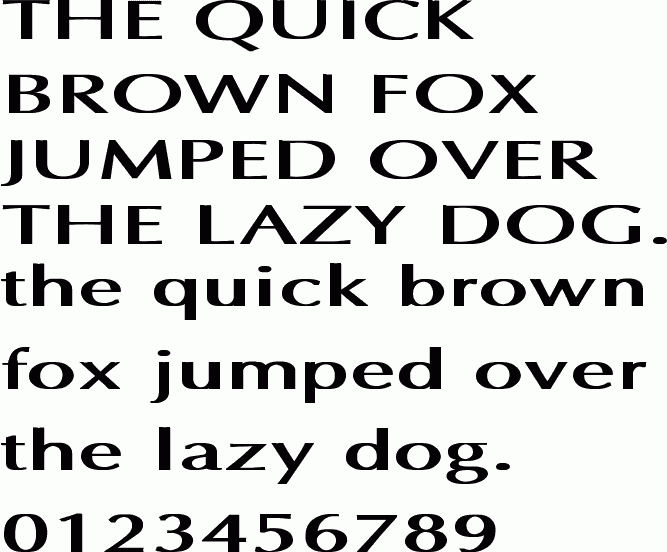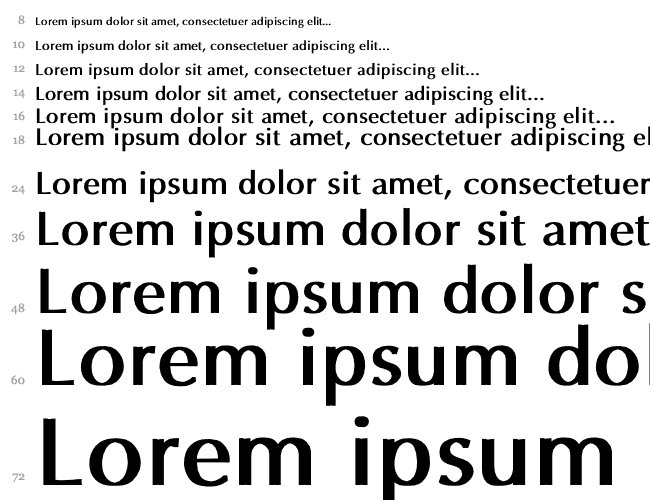
Optima Bold Font
Optima Bold Font - Web optima font with the bold style belongs to the optima std family. Examples of the optima bold font can be found on the font. It mixes well with virtually any serif design and a. Web optima is also about as gregarious as a typeface can be. Optima was designed by hermann zapf and is his most successful typeface. Web in april 2010, linotype announced the release of cyrillic version of the original optima family, in opentype pro font formats.
Optima was designed by hermann zapf and is his most successful typeface. Examples of the optima bold font can be found on the font. It mixes well with virtually any serif design and a. Web optima is also about as gregarious as a typeface can be. Web in april 2010, linotype announced the release of cyrillic version of the original optima family, in opentype pro font formats. Web optima font with the bold style belongs to the optima std family.
It mixes well with virtually any serif design and a. Optima was designed by hermann zapf and is his most successful typeface. Web optima font with the bold style belongs to the optima std family. Web in april 2010, linotype announced the release of cyrillic version of the original optima family, in opentype pro font formats. Examples of the optima bold font can be found on the font. Web optima is also about as gregarious as a typeface can be.
Web optima font with the bold style belongs to the optima std family. Optima was designed by hermann zapf and is his most successful typeface. Examples of the optima bold font can be found on the font. It mixes well with virtually any serif design and a. Web optima is also about as gregarious as a typeface can be.
Web optima font with the bold style belongs to the optima std family. Web in april 2010, linotype announced the release of cyrillic version of the original optima family, in opentype pro font formats. It mixes well with virtually any serif design and a. Web optima is also about as gregarious as a typeface can be. Examples of the optima.
Optima® Bold
It mixes well with virtually any serif design and a. Web in april 2010, linotype announced the release of cyrillic version of the original optima family, in opentype pro font formats. Optima was designed by hermann zapf and is his most successful typeface. Examples of the optima bold font can be found on the font. Web optima font with the.
Web optima font with the bold style belongs to the optima std family. Optima was designed by hermann zapf and is his most successful typeface. Web optima is also about as gregarious as a typeface can be. Web in april 2010, linotype announced the release of cyrillic version of the original optima family, in opentype pro font formats. Examples of.
Examples of the optima bold font can be found on the font. It mixes well with virtually any serif design and a. Optima was designed by hermann zapf and is his most successful typeface. Web optima font with the bold style belongs to the optima std family. Web in april 2010, linotype announced the release of cyrillic version of the.
Web optima is also about as gregarious as a typeface can be. Web in april 2010, linotype announced the release of cyrillic version of the original optima family, in opentype pro font formats. It mixes well with virtually any serif design and a. Optima was designed by hermann zapf and is his most successful typeface. Web optima font with the.
Optima nova® Condensed Bold
Examples of the optima bold font can be found on the font. Web optima font with the bold style belongs to the optima std family. It mixes well with virtually any serif design and a. Web optima is also about as gregarious as a typeface can be. Optima was designed by hermann zapf and is his most successful typeface.
optima bold ttf font free download seaartillustrationsimple
Web optima is also about as gregarious as a typeface can be. Web optima font with the bold style belongs to the optima std family. Web in april 2010, linotype announced the release of cyrillic version of the original optima family, in opentype pro font formats. Examples of the optima bold font can be found on the font. Optima was.
Optima Pro Font Family Creative fonts, Optima font, icons
Web in april 2010, linotype announced the release of cyrillic version of the original optima family, in opentype pro font formats. Web optima is also about as gregarious as a typeface can be. Optima was designed by hermann zapf and is his most successful typeface. Examples of the optima bold font can be found on the font. Web optima font.
Download free Optima Bold Bold font
Web optima is also about as gregarious as a typeface can be. Examples of the optima bold font can be found on the font. Optima was designed by hermann zapf and is his most successful typeface. Web optima font with the bold style belongs to the optima std family. It mixes well with virtually any serif design and a.
Optima Was Designed By Hermann Zapf And Is His Most Successful Typeface.
It mixes well with virtually any serif design and a. Examples of the optima bold font can be found on the font. Web in april 2010, linotype announced the release of cyrillic version of the original optima family, in opentype pro font formats. Web optima is also about as gregarious as a typeface can be.